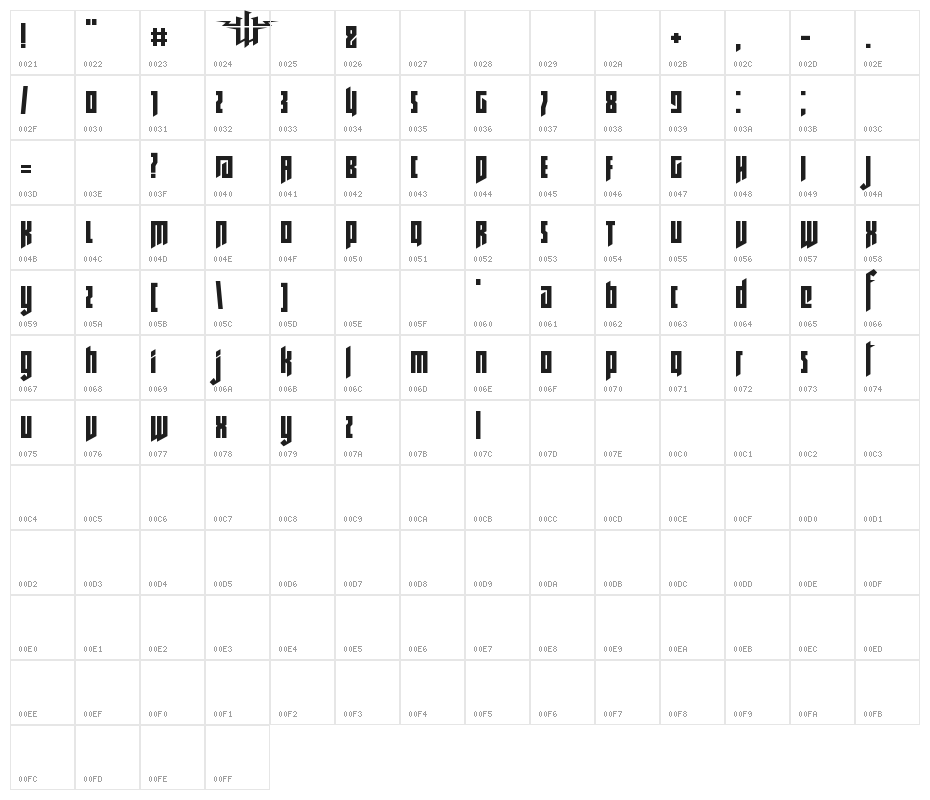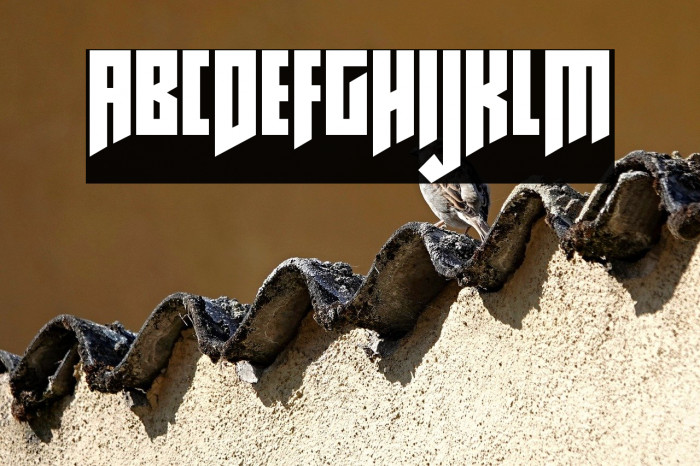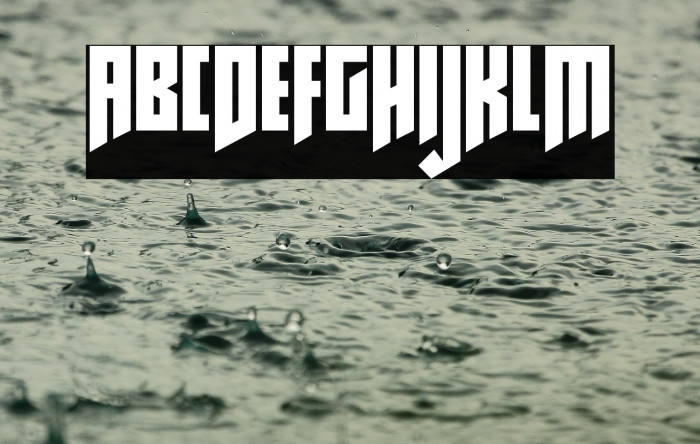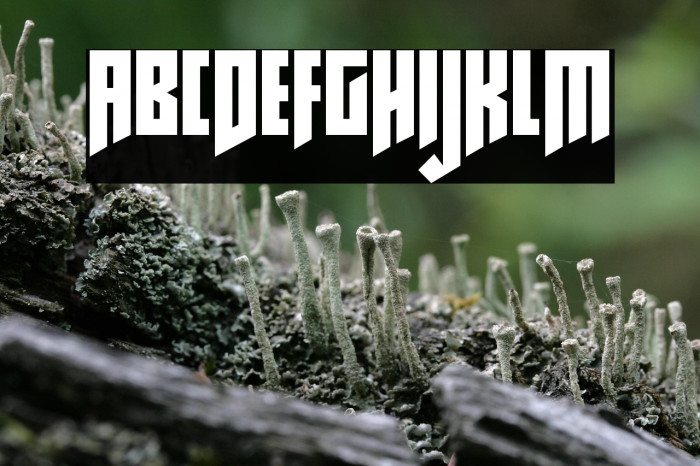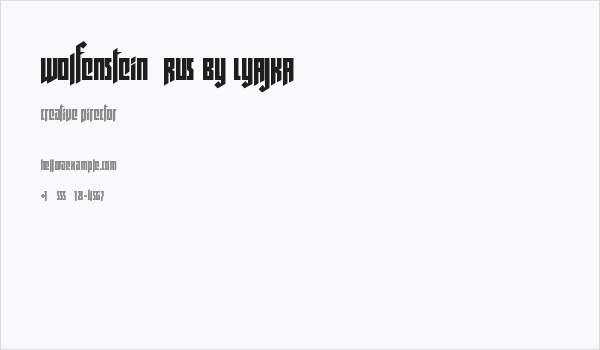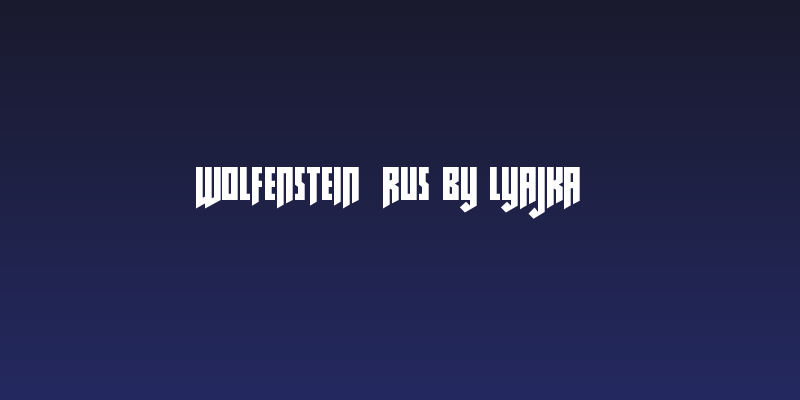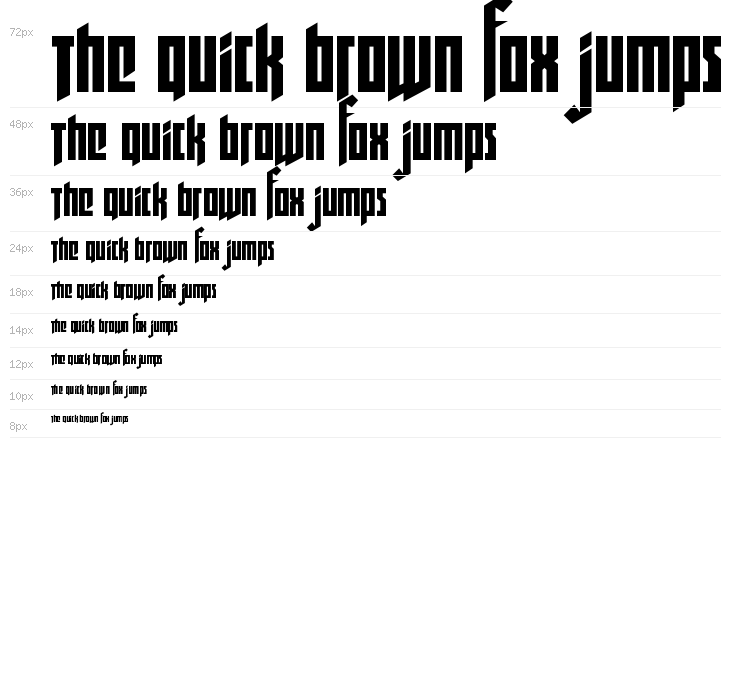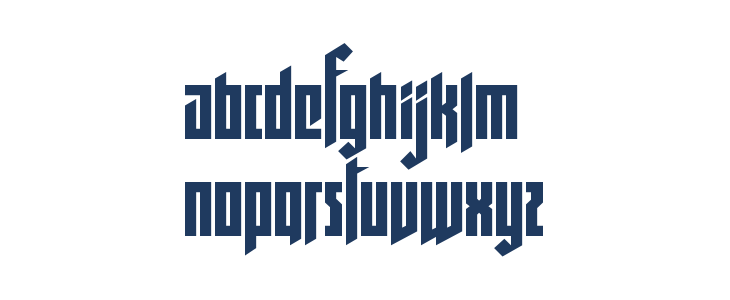
wolfenstein(RUS BY LYAJKA) Font
wolfenstein(RUS BY LYAJKA) Description
This font exhibits a bold, angular design with a distinctly modern and aggressive style. The characters are sharply defined with a geometric structure, featuring pointed edges and a strong vertical emphasis. The uppercase and lowercase letters maintain a consistent height, contributing to a uniform appearance. The numerals and special characters are equally bold, with unique, stylized elements that enhance the font's striking visual impact. The overall design is reminiscent of a futuristic or industrial aesthetic, making it suitable for projects that require a strong, impactful typeface.
| Proposed Projects | Ideal for video game titles, movie posters, branding for tech or industrial companies, and any project needing a strong, impactful typeface. |